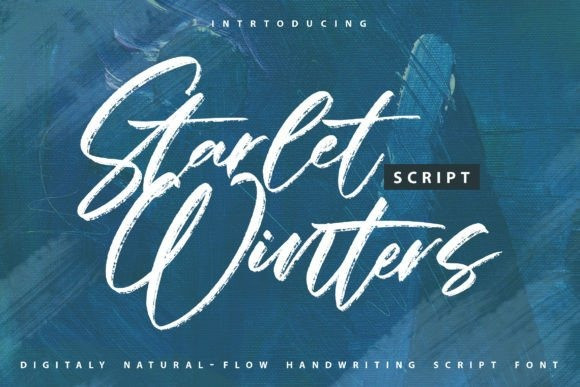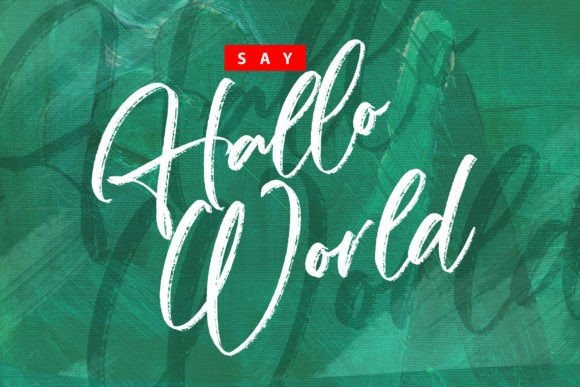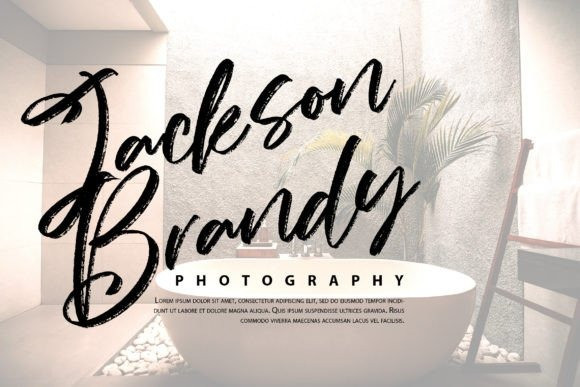
Starlet Winters Font
Starlet Winters feels equally charming and elegant. It looks stunning on wedding invitations, thank you cards, quotes, greeting cards, logos, business cards, and every other design which needs a handwritten touch.